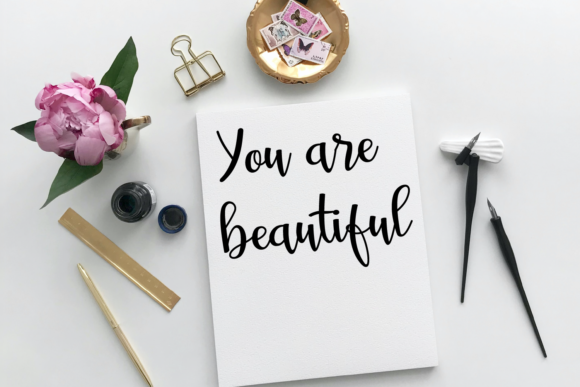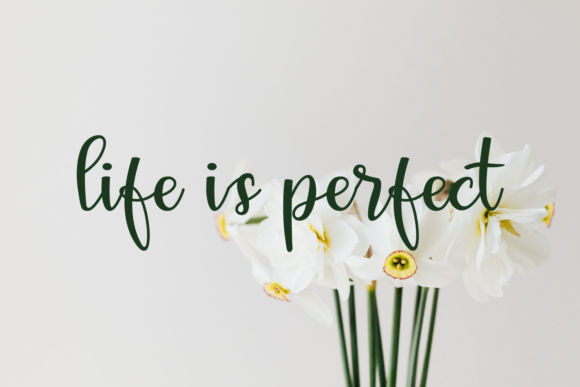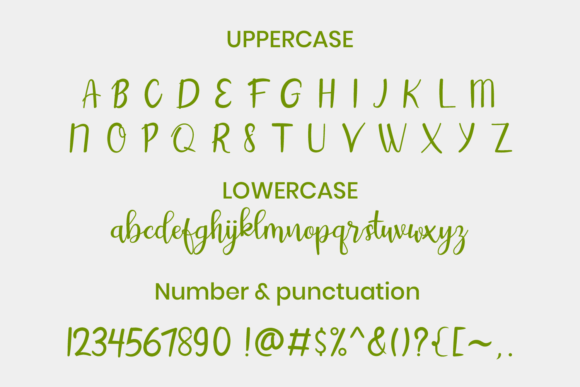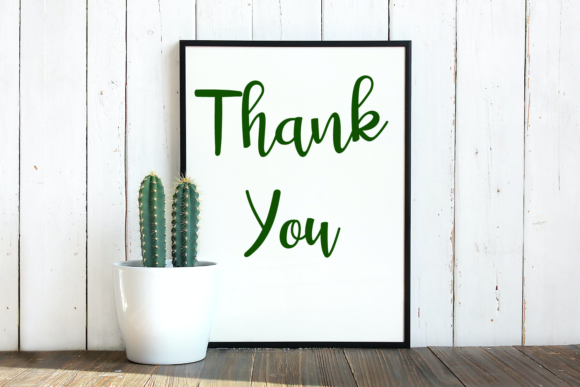
Aintya Beauty Font
About Aintya Beauty Font
Aintya beauty is a sweet and friendly handwritten font. Its relaxed style makes it fitting to a wide range of designs. This font is the perfect fit for all of your logos, branding, wedding invitations, beautiful stationary art, eye-catching social media posts, and cute greeting cards.